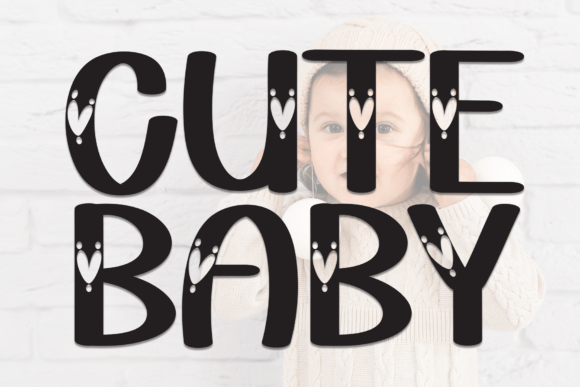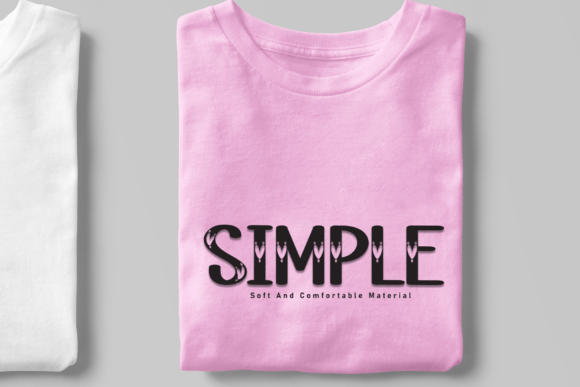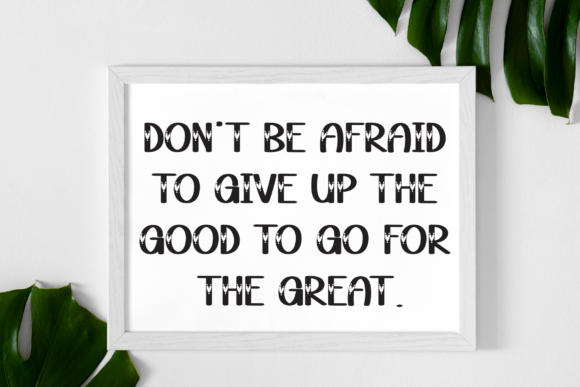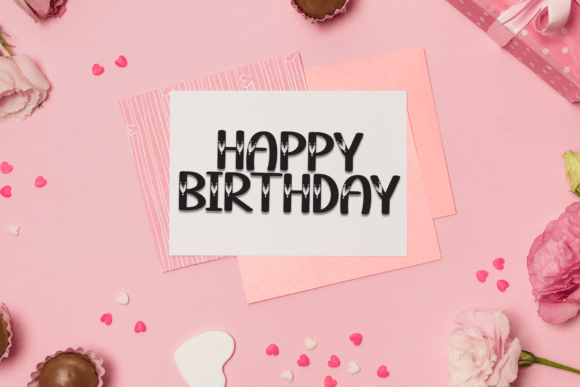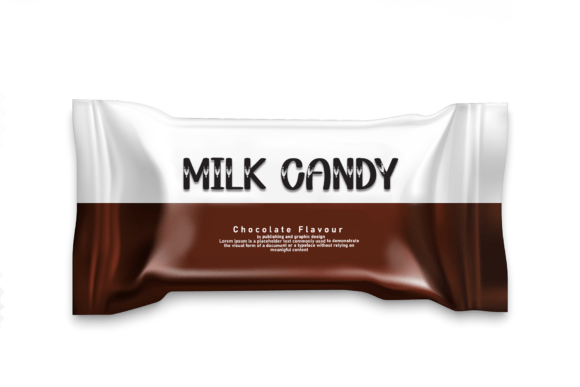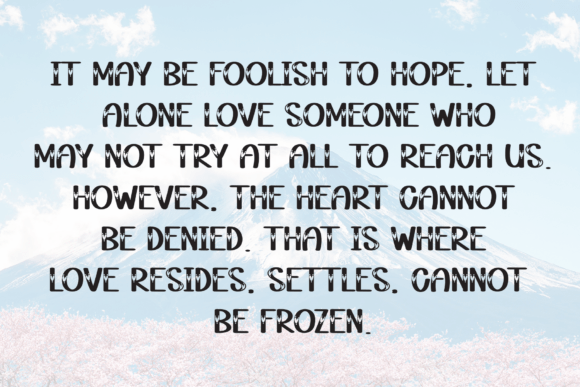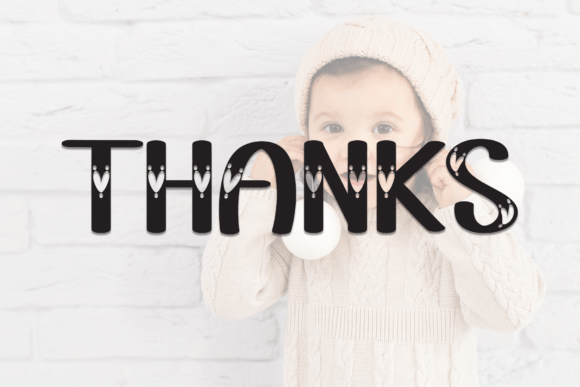
Where Whimsy Meets Warmth: Unveiling Cute Baby Font
Have you ever been browsing through a stationery store, and suddenly, you’re captivated by a beautiful handwritten font on a wedding invitation? That’s exactly what happened to me, and it sparked an idea for this article – to introduce you to the delightful world of Cute Baby Font. This charming font is perfect for those who want to add a touch of personality and warmth to their designs.
Cute Baby Font is a handwriting-inspired font that exudes a lighthearted and amicable style, making it ideal for love-filled wedding invitations, heartfelt cards, or design projects that need a dash of whimsy. As a designer, you’ll appreciate the versatility and uniqueness it brings to your creations, setting them apart from the ordinary. With Cute Baby Font, you can infuse your designs with warmth and joy, making it a valuable addition to your design toolkit.
Cute Baby Font Key Features
- Font Family: Cute Baby Font is a sans-serif font designed specifically for creating adorable and playful text.
- Unique Characteristics: The font features rounded edges, soft curves, and a childlike aesthetic, making it perfect for creating a playful and endearing atmosphere.
Cute Baby Font Review
Cute Baby Font is a delightful addition to any design project, especially those centered around children or young themes. ✨ The font’s playful and whimsical feel is infectious, making it perfect for creating a cheerful atmosphere.
- It works well in headings and titles, adding a touch of innocence and charm.
- The font’s rounded edges and soft lines make it ideal for creating a sense of warmth and approachability.
- Cute Baby Font is highly versatile and can be used in a variety of contexts, from advertising to editorial content.
However, there are some limitations to consider: ⚠️ The font may not be the best choice for professional or formal projects, as it can come across as too juvenile. Additionally, the font’s lack of bold weights may limit its use in certain situations.
Overall, Cute Baby Font is a great option for designers looking to add a playful touch to their projects. While it may not be suitable for all types of projects, its unique charm and versatility make it a valuable addition to any design library.
Tips for Getting the Most Out of Cute Baby Font
Use Cute Baby Font for titles, headings, and short paragraphs to add a playful touch to your designs.
Pair Cute Baby Font with other playful fonts or illustrations to create a cohesive and whimsical look.
Use Cute Baby Font in conjunction with bold colors and textures to create a visually appealing design.
Cute Baby Font is commonly used in:
Children’s product packaging and branding
Infant and toddler clothing and accessories
Children’s party invitations and decorations
Education and children’s entertainment materials